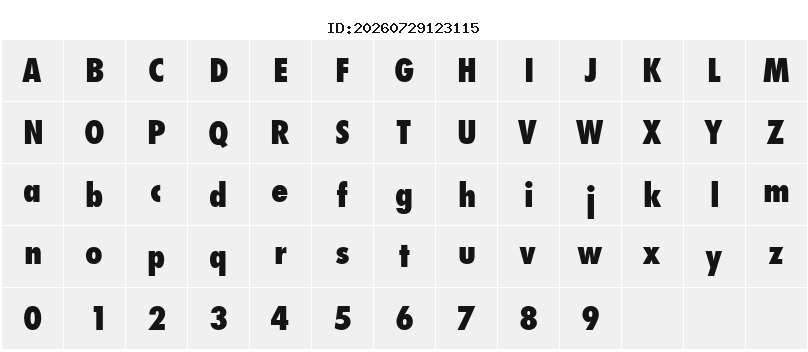
Kudos Black Condensed SSi Preview
• Font Name: Kudos Black Condensed SSi
• Font Style: Extra Bold Condensed
• Full Font Name: Kudos Black Condensed SSi Extra Bold Condensed
About Kudos Black Condensed SSi.ttf
Kudos Black Condensed SSi.ttf is a modern, elegant sans-serif font designed for ultimate readability and visual harmony. Perfect for branding, headlines, web design, and print materials.